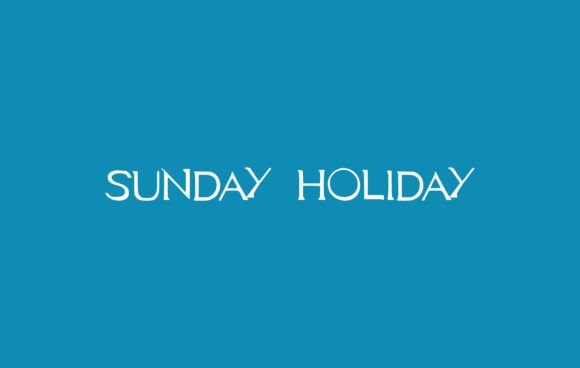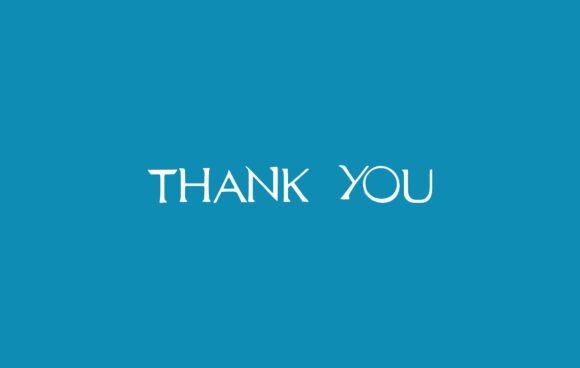
The ElectricHue Font: A Romantic Touch for Your Creative Projects
I’ll never forget the time I was working on a wedding invitation design project, and my client asked for a font that was both elegant and playful. I scoured the internet, trying out font after font, but nothing seemed quite right. That was until I stumbled upon the ElectricHue font. With its romantic touch and authentic handwritten feel, it was love at first sight! In this article, I’ll share my experience with ElectricHue, its features, and how to make the most of it in your designs.
An Honest Review of ElectricHue Font
What I Love About ElectricHue ✨
- ✅ Legibility: ElectricHue is incredibly easy to read, making it perfect for both title and body text.
- ✅ Romantic Touch: The font’s handwritten feel adds a touch of warmth and elegance to any design.
- ✅ Versatility: ElectricHue is suitable for a wide range of projects, from magazine headlines to social media graphics, branding, and wedding invitations.
- ✅ Authentic Look: The font’s authentic handwritten look makes it stand out from more generic fonts.
While ElectricHue is an excellent font, there are a few things to keep in mind:
- 🤔 Limited Use in Small Sizes: While ElectricHue is legible, it may not be the best choice for very small font sizes, as some details may get lost.
- 🤔 Not Suitable for All Languages: As with any font, ElectricHue may not support all languages or special characters.
- Explore stylistic alternates and glyphs to add more variety to your text.
The Story Behind ElectricHue
ElectricHue was designed with the goal of creating a font that was both elegant and approachable. The designer wanted to create a font that would add a touch of warmth and personality to any project. With its authentic handwritten feel and romantic touch, ElectricHue has become a favorite among designers and crafters.
Q: Is ElectricHue suitable for body text?
A: Yes, ElectricHue is legible and suitable for body text, but it may not be the best choice for very long documents or small font sizes.
Q: Does ElectricHue support OpenType features?
A: Yes, ElectricHue supports OpenType features, including glyphs and stylistic alternates.